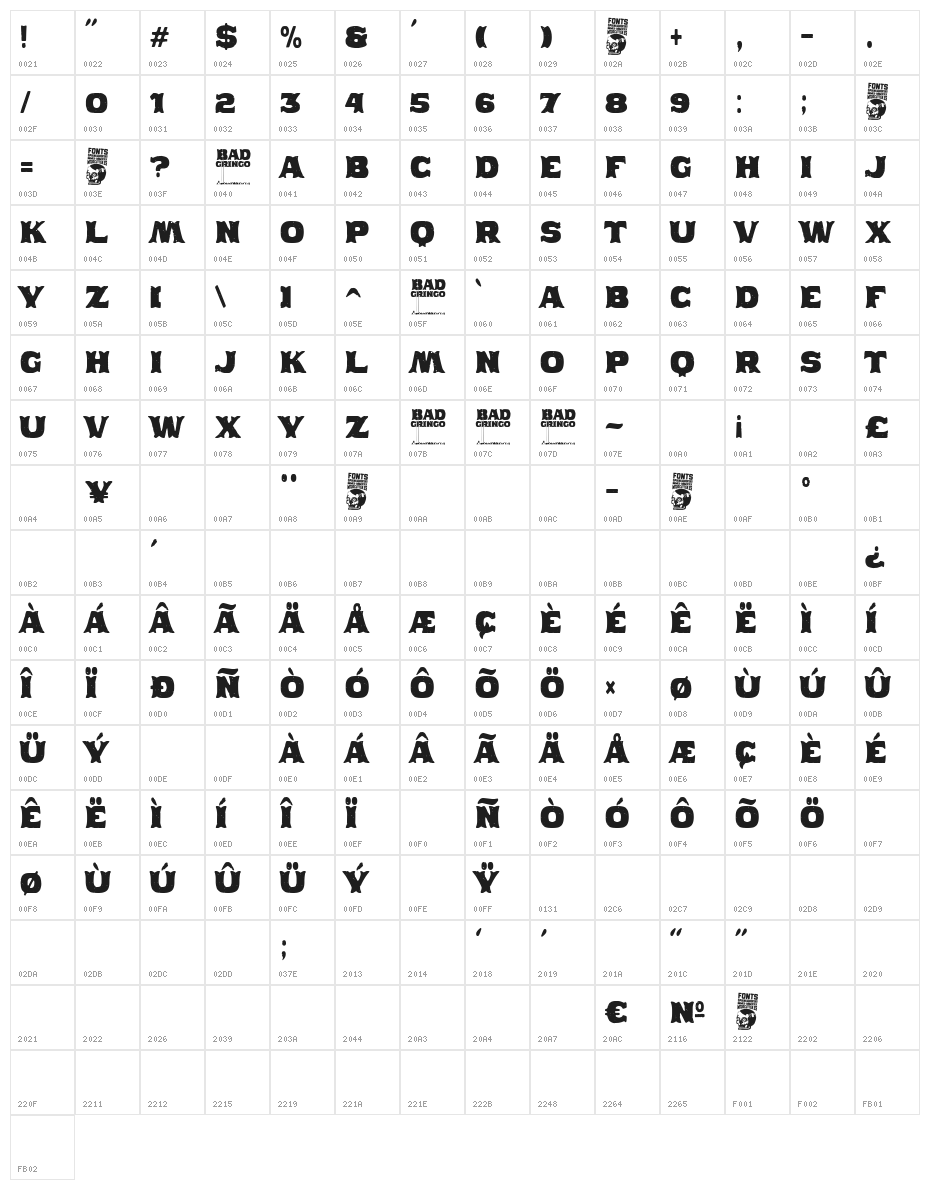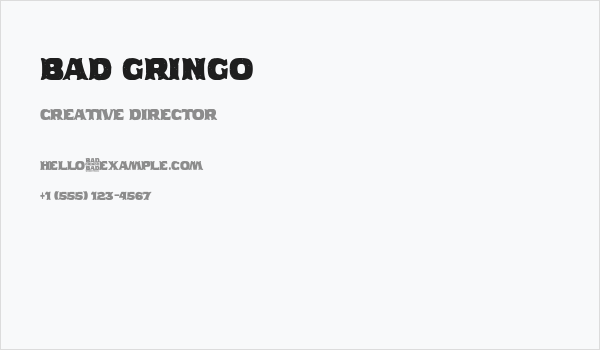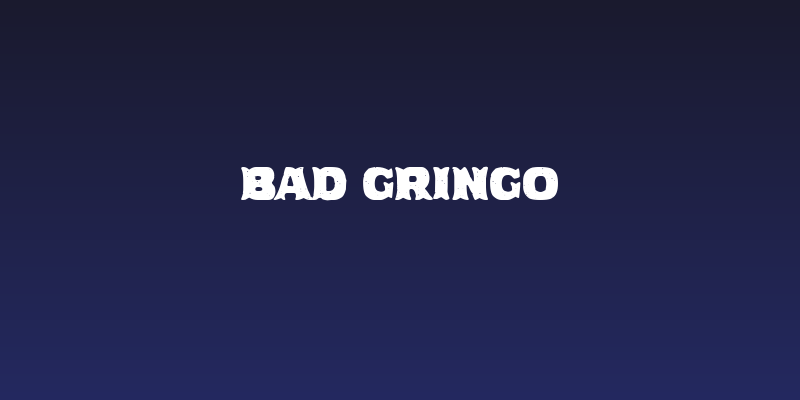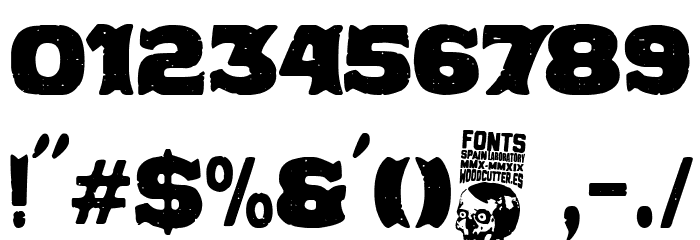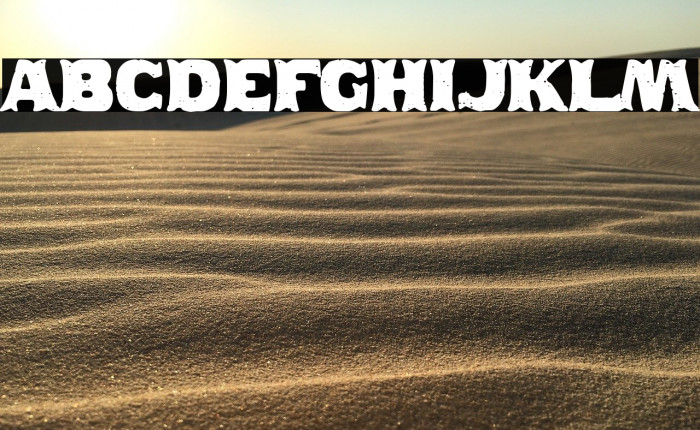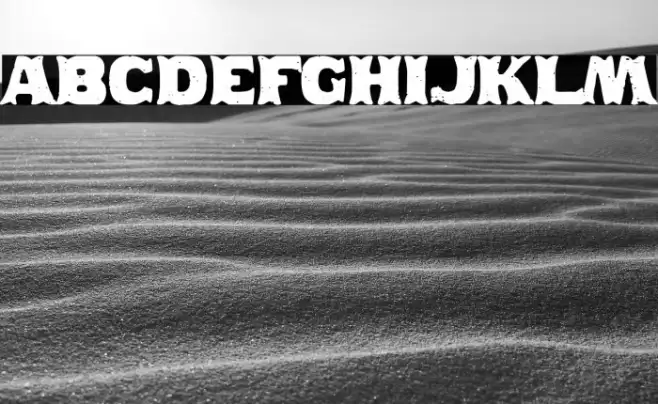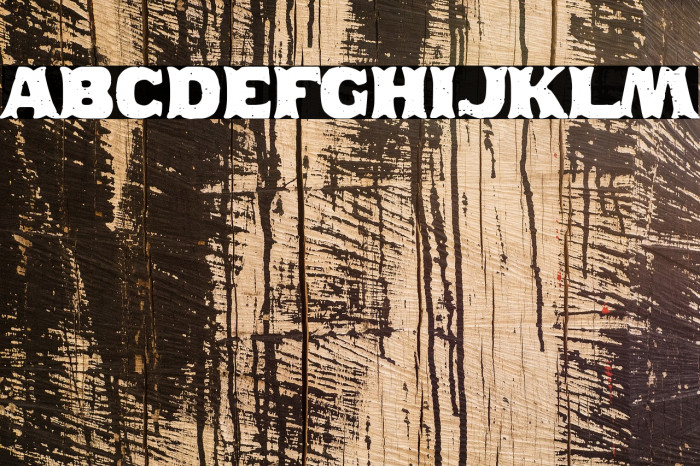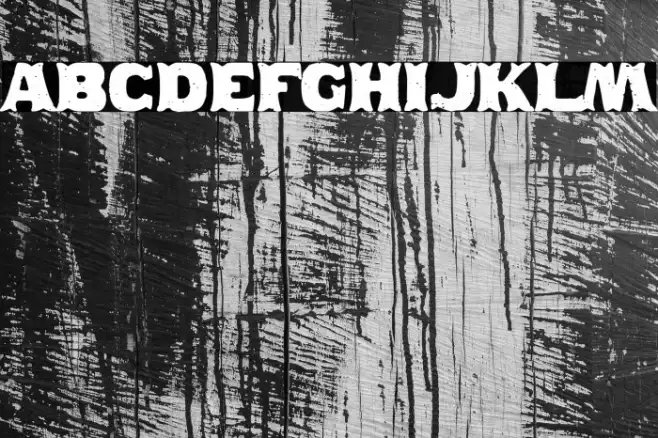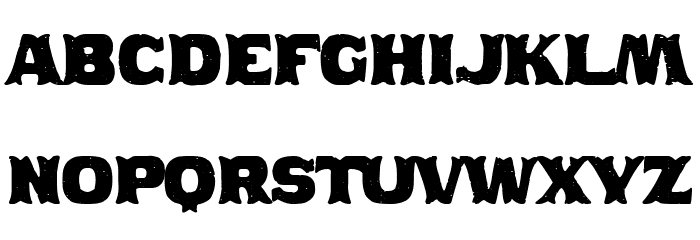
Bad Gringo Font
Bad Gringo Description
This font features a bold and rugged style with a distressed, textured appearance. The characters are thick and heavy, giving a strong visual impact. The edges are uneven and rough, adding a gritty, hand-crafted feel. This style evokes a sense of toughness and rawness, suitable for designs that require a bold statement. The uppercase and lowercase letters maintain a consistent weight, while the numbers and special characters follow the same distressed aesthetic. The overall look is both eye-catching and memorable, perfect for projects that need a touch of edginess.
| Proposed Projects | Ideal for posters, album covers, branding for edgy products, or any design needing a bold, gritty look. |